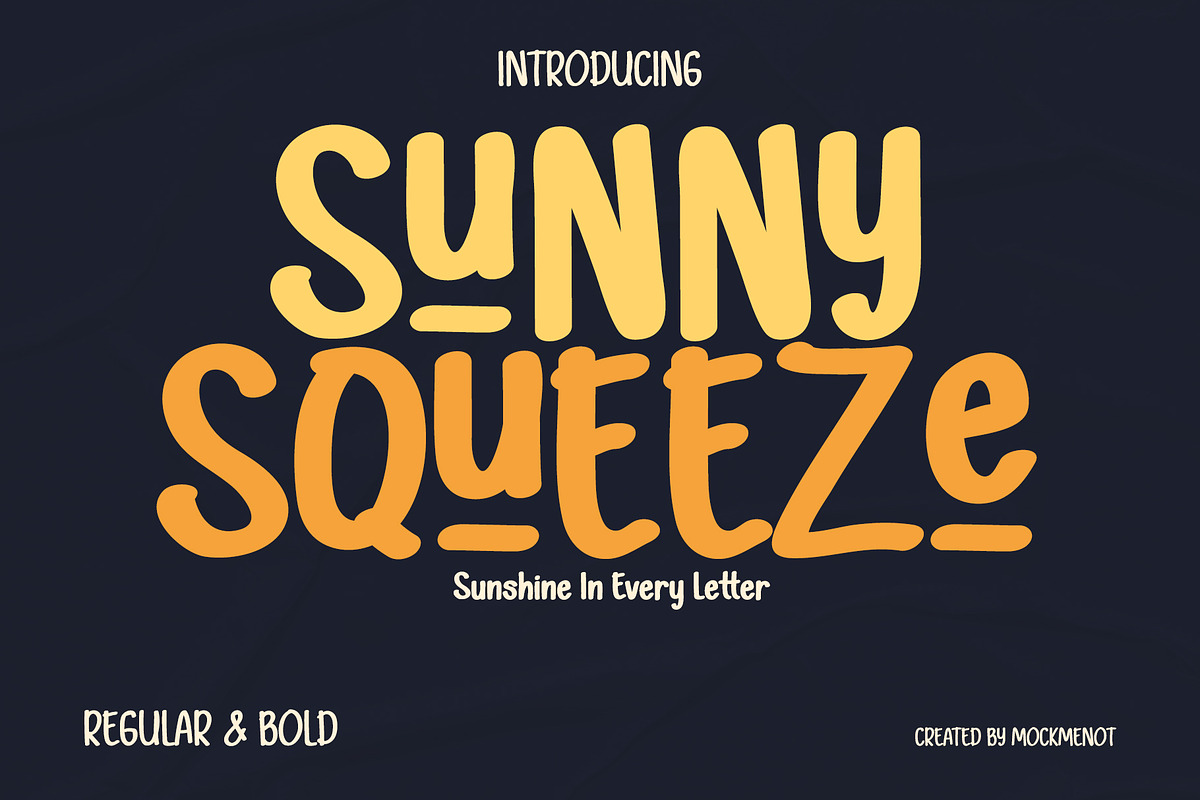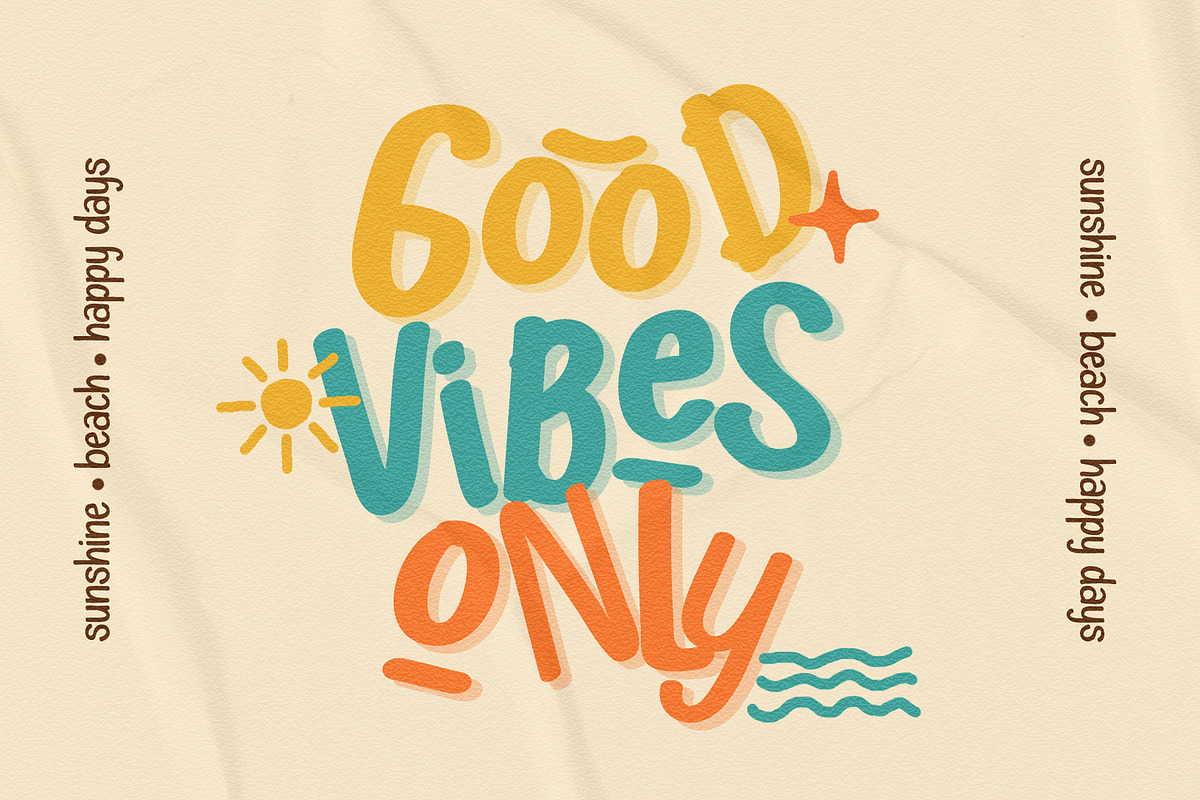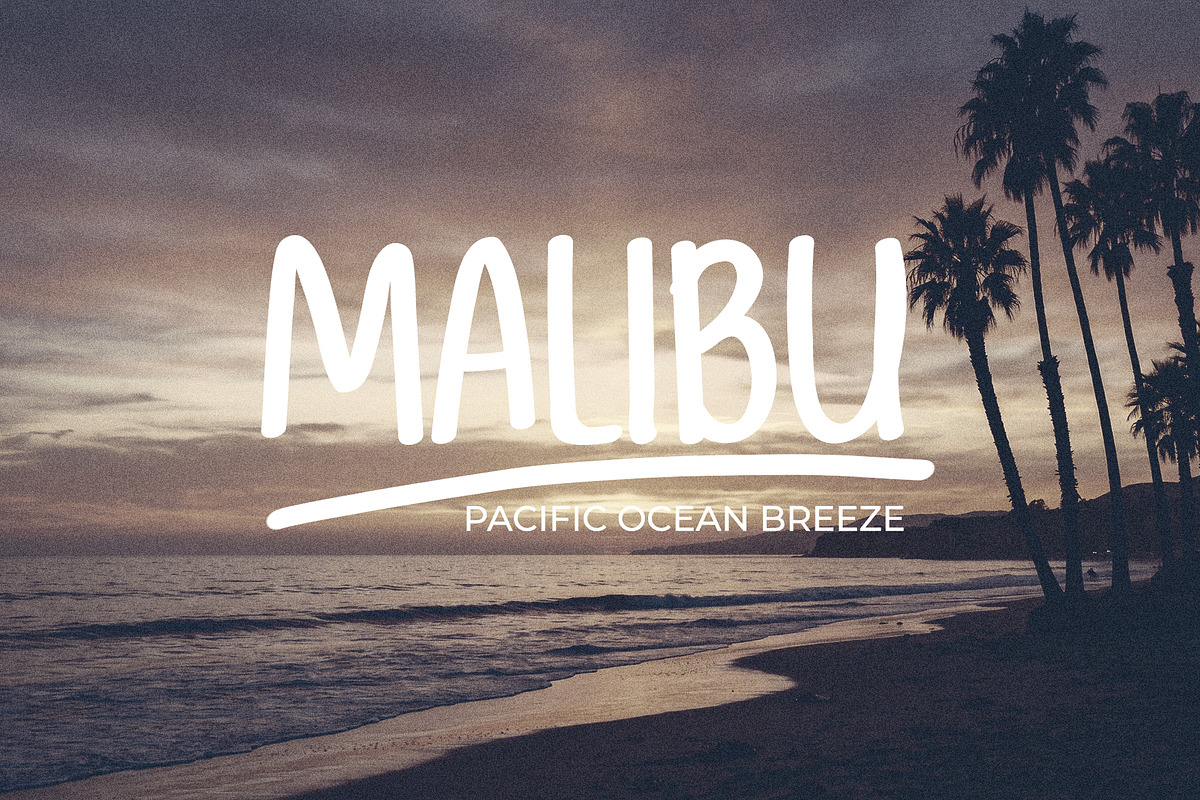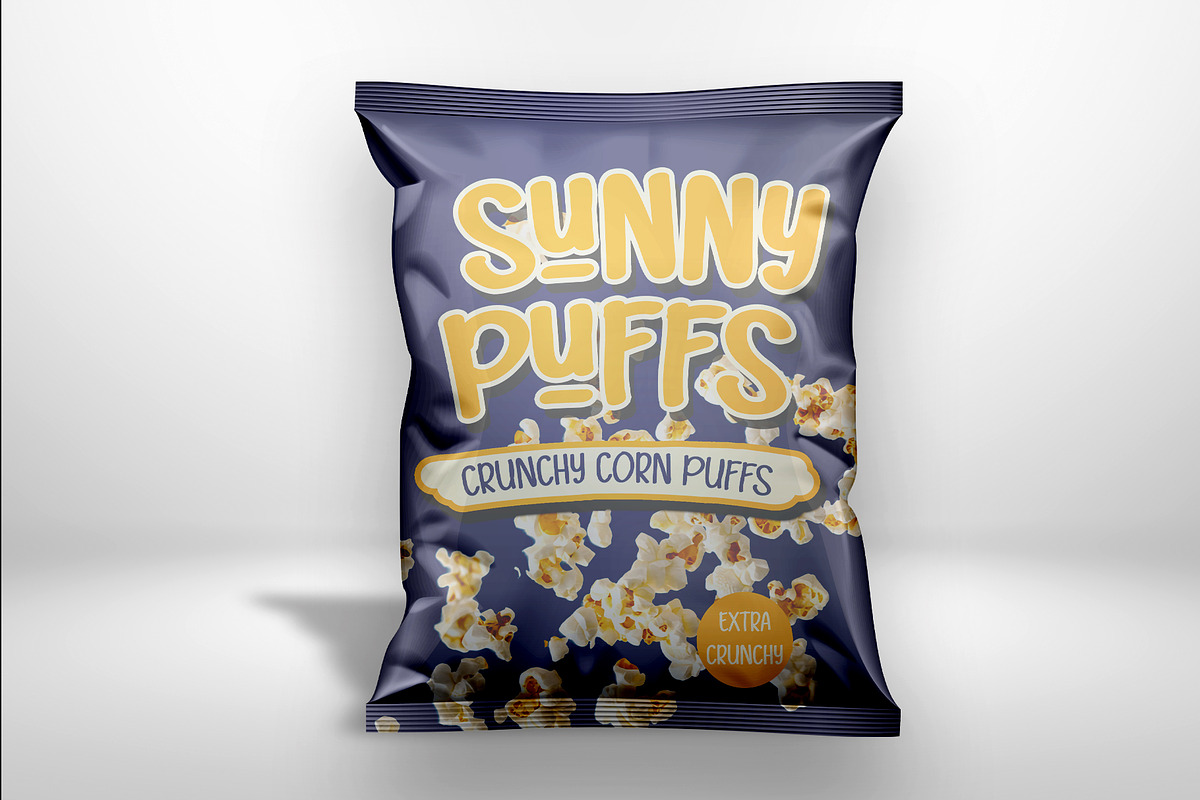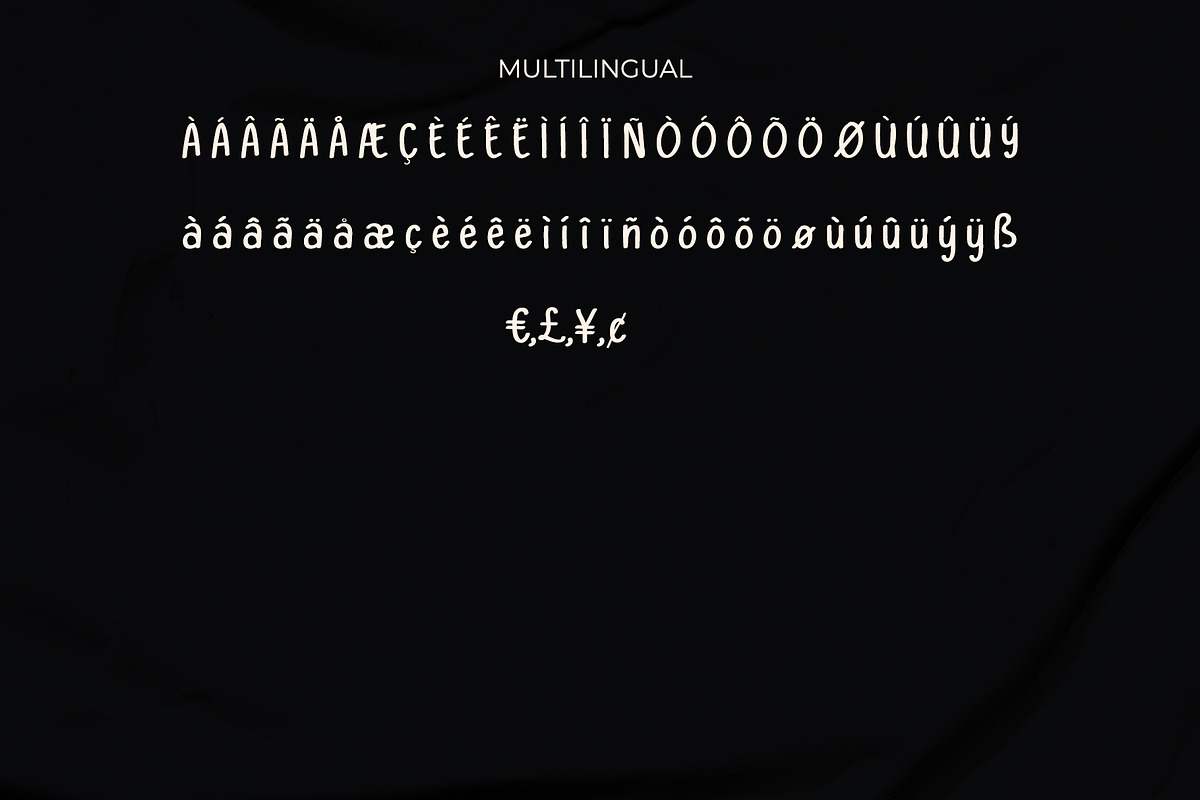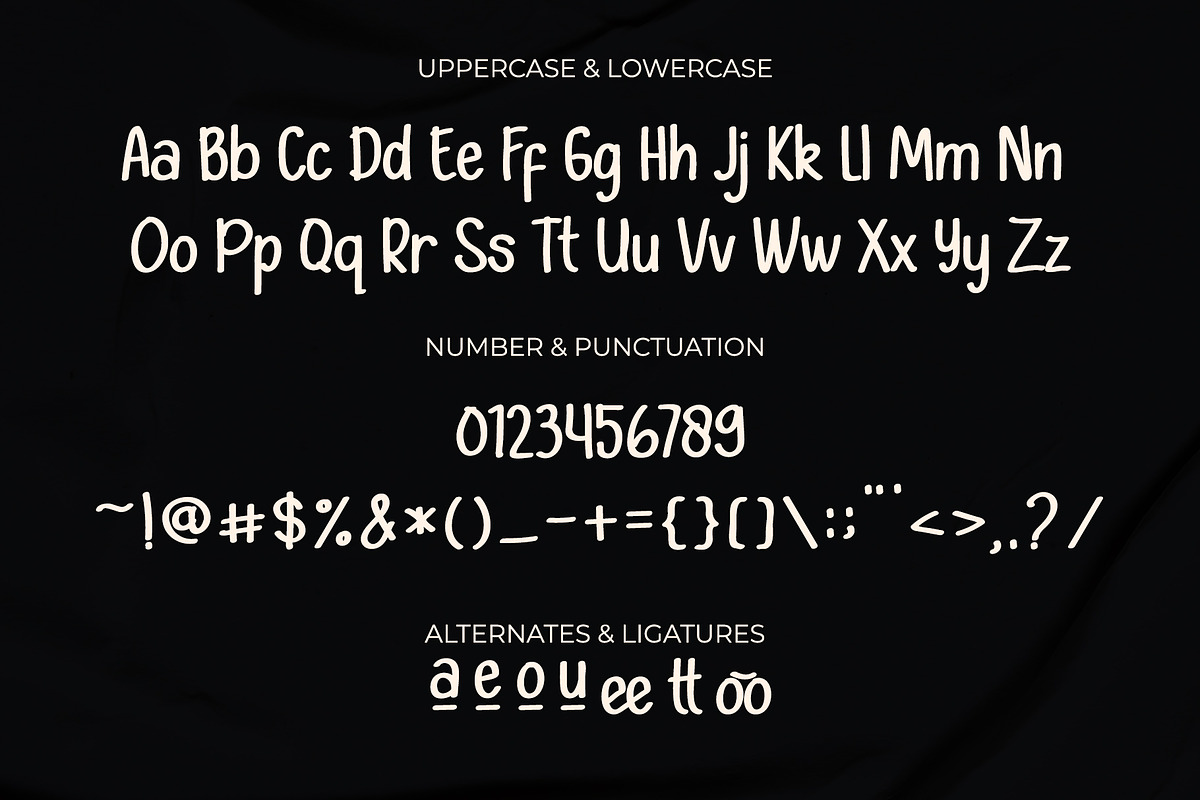
Sunny Squeeze – Cheerful Font
Meet Sunny Squeeze — a playful retro display font inspired by warm summer days, vintage snack packaging, and cheerful handmade lettering. With its chunky rounded shapes and nostalgic personality, this font is perfect for branding, packaging, posters, social media, kids products, café menus, stickers, and fun creative projects.
Sunny Squeeze comes with playful ligatures, alternates, numerals, punctuation, and multilingual support to help you create joyful and eye-catching designs with ease.
\\\\\\\\- Uppercase & Lowercase
\\\\\\\\- Regular \\\\\\\\\\\\\\\* Bold
\\\\\\\\- Numerals & Punctuation
\\\\\\\\- Ligatures & Alternates
\\\\\\\\- Multilingual Support
\\\\\\\\- Retro branding
\\\\\\\\- Snack packaging
\\\\\\\\- Summer posters
\\\\\\\\- Social media
\\\\\\\\- Kids design
\\\\\\\\- Stickers & labels
\\\\\\\\- Editorial layouts
\\\\\\\\- Café & beverage branding